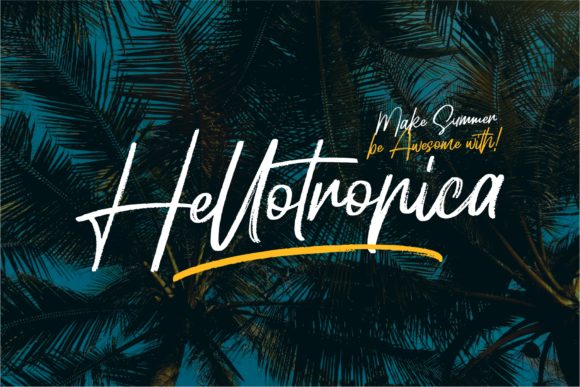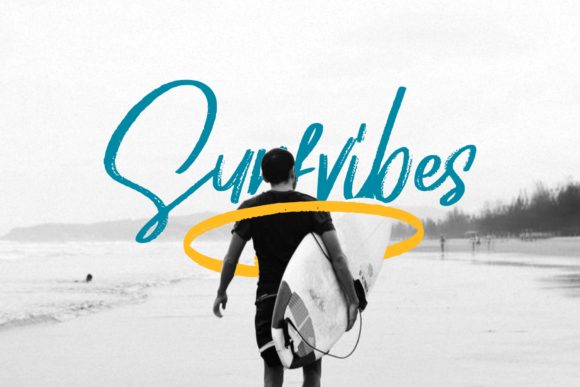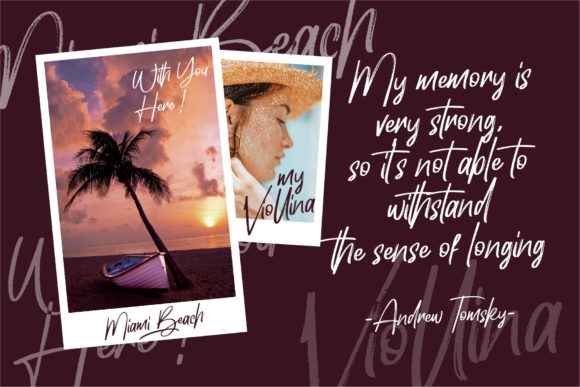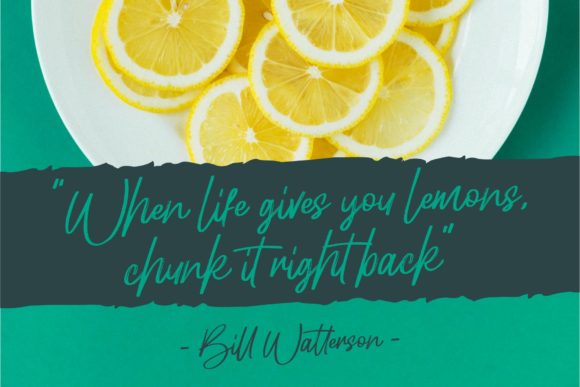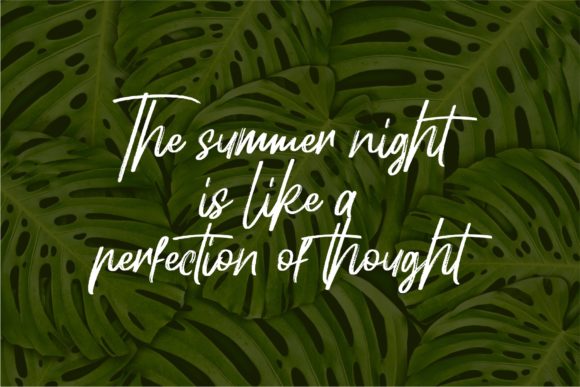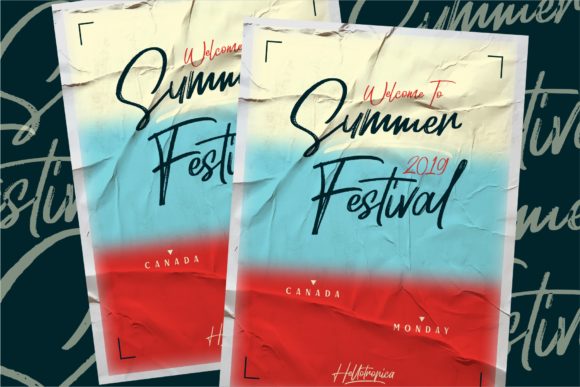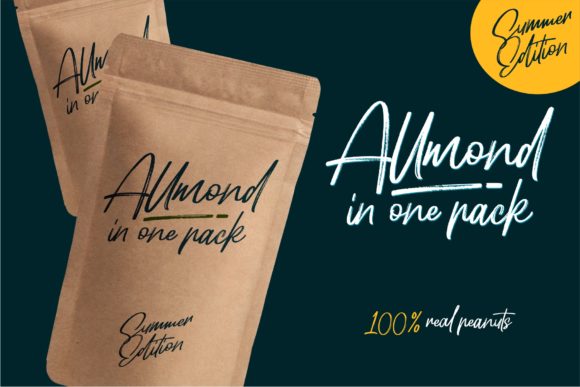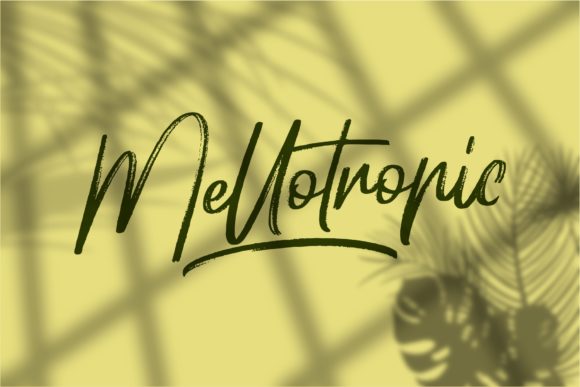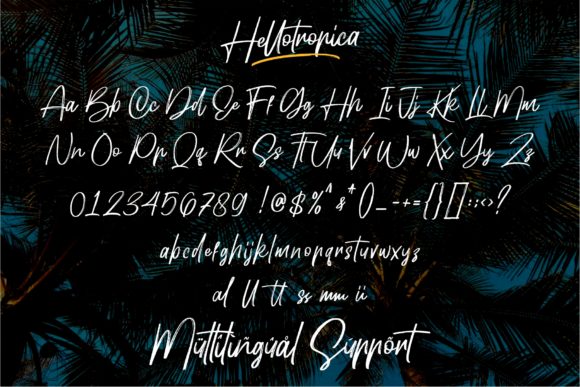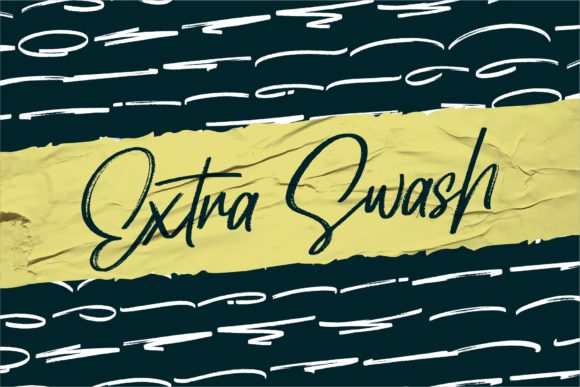
HomeScript FontsHellotropica Font Script Fonts Hellotropica Font FacebookXPinterestWhatsApp Hellotropica Font Poster 2 Hellotropica Font Poster 3 Hellotropica Font Poster 4 Hellotropica Font Poster 5 Hellotropica Font Poster 6 Hellotropica Font Poster 7 Hellotropica Font Poster 8 Hellotropica Font Poster 9 Hellotropica Font Poster 10 About Hellotropica Font Hellotropica is a bold handwritten font with a tropical twist. It will elevate any design project! DOWNLOAD ON CREATIVE FABRICAThis font is sold and delivered by Creative Fabrica. Font Canyon may earn a commission if you buy through this link. People also explored Play Mouse Font Kowalski2 Fellya Font Cartoonish Font Smooth Font All My Love Font Diana and Shelly Font Rafaesty Wigera Font Mango Salsa with Bouncy Handwritten Script Font Style 334 0 TagsHellotropica Font Previous articleSania Arsela FontNext articleHello Friends Font LEAVE A REPLY Cancel reply Comment: Please enter your comment! Name:* Please enter your name here Email:* You have entered an incorrect email address! Please enter your email address here Website: Save my name, email, and website in this browser for the next time I comment. Personal Use Free Martani Personal Use Free Read more about this font Built Tilting Personal Use Free Read more about this font Kitchen Blue Personal Use Free Read more about this font Happy Rabbit Personal Use Free Read more about this font BLOG Free Fonts Risk: Why Free Fonts Can Be Dangerous for Designers Free Fonts Risk: Why Free Fonts Can Be Dangerous for Designers Using free fonts is a common practice in web and graphic design. However, the... Using Fonts in Digital Marketing: Tips to Strengthen Your Brand Identity How to Install and Use Fonts on Windows, macOS, and Web Projects To increase your work productivity, choose the most readable fonts.